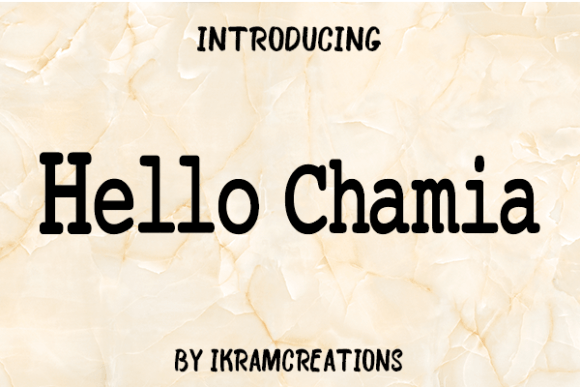
Immerse yourself in the captivating world of Hello Chamia Font, an exquisite slab serif typeface that will ignite your creative spirit and leave an unforgettable mark. Crafted by the talented hands of IkramCreations, this font empowers designers with its innate ability to elevate visual experiences.
Hello Chamia transcends the ordinary, offering a symphony of elegance and functionality. Its timeless curves and sharp angles dance harmoniously, creating a symphony of shapes that will captivate your audience. Each letter is a masterpiece, imbued with a distinct character that will elevate your designs to new heights.
Journey beyond the mundane with Hello Chamia, the perfect choice for crafting logos that demand attention. Its bold presence will ensure your brand stands out from the crowd, leaving an enduring impression on all who encounter it. Unleash your imagination and create logos that whisper sophistication and exude confidence.
But the allure of Hello Chamia extends far beyond logos. Its versatility allows it to seamlessly adapt to a myriad of creative endeavors. From branding to quotes, Hello Chamia gracefully transforms ordinary words into extraordinary works of art. Every letter carries an emotional weight, connecting with your audience on a deeper level.
Whether you seek to evoke a sense of nostalgia or inspire action, Hello Chamia is your muse. Its timeless charm transcends trends, ensuring that your designs will remain relevant and impactful for years to come. Embrace the power of Hello Chamia and unlock a world of endless creative possibilities.